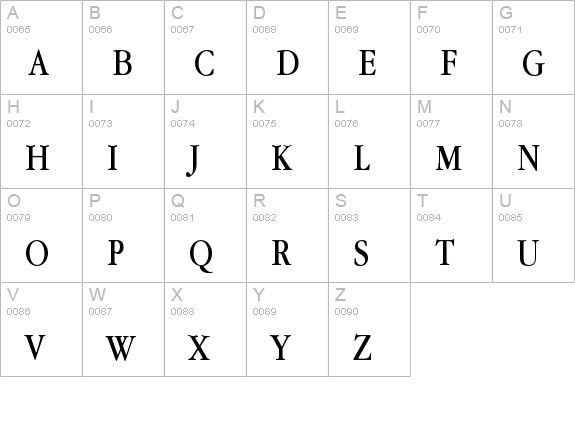
Apple Garamond Book BT is a comfortable, highly readable variant in the Apple typeface family \xE2\x80\x94 well suited to long-form body text, articles, and editorial content.
Apple Garamond Book BT is a classic and elegant serif font style that exudes sophistication and timelessness. With its refined curves and balanced letterforms, this font is perfect for conveying a sense of professionalism and tradition in various design projects. The subtle details of Apple Garamond Book BT enhance readability and give a polished look to any text. What makes Apple Garamond Book BT even more appealing is that it is available for free download at FontsMarket.com. This means you can easily access this high-quality font and incorporate it into your designs without any cost. Whether you are working on branding materials, publications, or digital content, Apple Garamond Book BT is a versatile font choice that adds a touch of elegance to your work. Download it today and elevate your design projects with this timeless typeface.